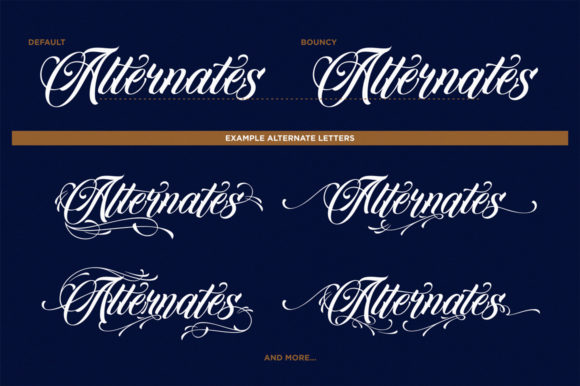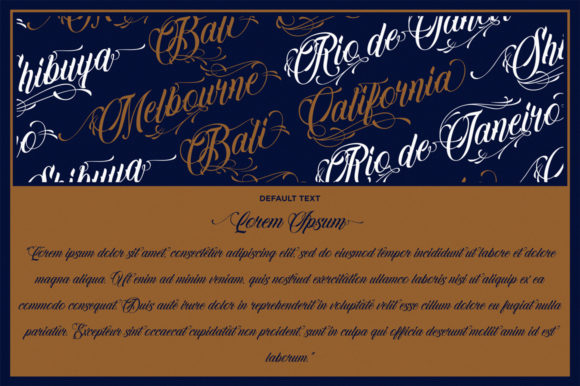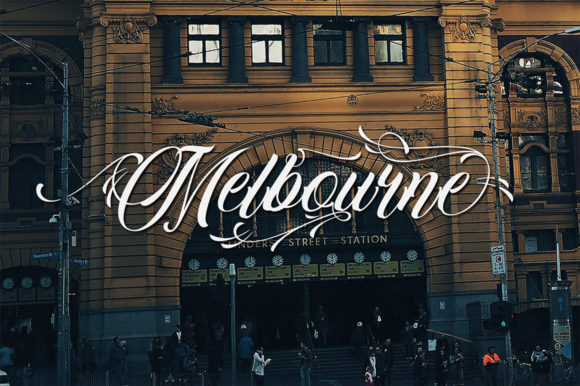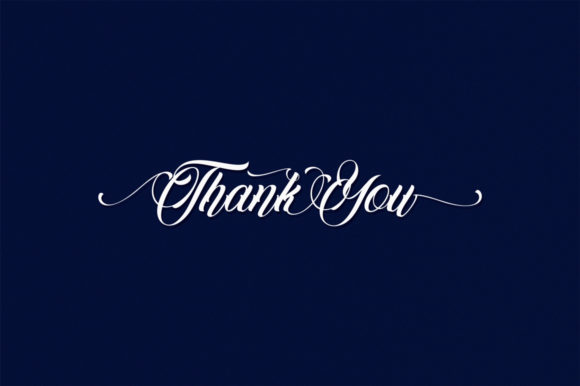
Introducing Familia Script Font: Elevate Your Designs with Elegance and Sophistication
In the world of typography, a font can make or break a design project. If you’re a designer, craftsperson, or simply someone who appreciates the art of beautiful lettering, you’re in luck. Familia Script Font is a stunning, elegant, and unique typeface that is sure to add a touch of luxury to any design project. In this article, we’ll dive into the features and benefits of Familia Script Font, and explore how it can elevate your designs to new heights.
A Beautiful, Elegant, and Clean Typeface
Familia Script Font is a gorgeous script font that boasts a beautiful, elegant, and clean aesthetic. Its sleek lines, flowing curves, and precise lettering make it perfect for a wide range of design applications, from wedding invitations and branding materials to packaging and advertising. Whether you’re looking to create a sophisticated and high-end look or simply want to add a touch of elegance to your designs, Familia Script Font is the perfect choice.
What Sets Familia Script Font Apart?
So, what makes Familia Script Font so special? Here are just a few features that set it apart from other typefaces:
• Unique and Original Design: Familia Script Font is a one-of-a-kind typeface that is sure to make your designs stand out from the crowd.
• Elegant and Sophisticated: With its sleek lines and flowing curves, Familia Script Font exudes elegance and sophistication.
• Clean and Precise Lettering: The font’s clean and precise lettering makes it perfect for use in a wide range of design applications.
• Luxurious Vibe: Familia Script Font has a distinctly luxurious feel that is sure to elevate your designs and make them feel high-end.
How to Use Familia Script Font in Your Designs
Familia Script Font is incredibly versatile and can be used in a wide range of design applications. Here are just a few ideas to get you started:
• Wedding Invitations: Add a touch of elegance and sophistication to your wedding invitations with Familia Script Font.
• Branding Materials: Use Familia Script Font to create luxurious and high-end branding materials, such as business cards and letterheads.
• Packaging Design: Add a touch of elegance to your packaging designs with Familia Script Font.
• Advertising: Use Familia Script Font to create eye-catching and sophisticated advertisements.
Tips for Getting the Most Out of Familia Script Font
Here are a few tips for getting the most out of Familia Script Font:
• Use it Sparingly: Familia Script Font is a powerful typeface that can quickly become overwhelming if overused. Use it sparingly to create a sense of elegance and sophistication.
• Experiment with Different Sizes and Colors: Don’t be afraid to experiment with different sizes and colors to find the perfect combination for your design.
• Pair it with Other Fonts: Familia Script Font pairs beautifully with other fonts. Experiment with different pairings to find the perfect combination for your design.
Font Name Familia Script Font
Author letrasupply
In conclusion, Familia Script Font is a beautiful, elegant, clean, and unique typeface that is sure to add a luxurious vibe to any design project. With its sleek lines, flowing curves, and precise lettering, it’s perfect for a wide range of design applications. Whether you’re a designer, craftsperson, or simply someone who appreciates the art of beautiful lettering, Familia Script Font is a must-have in your font collection.